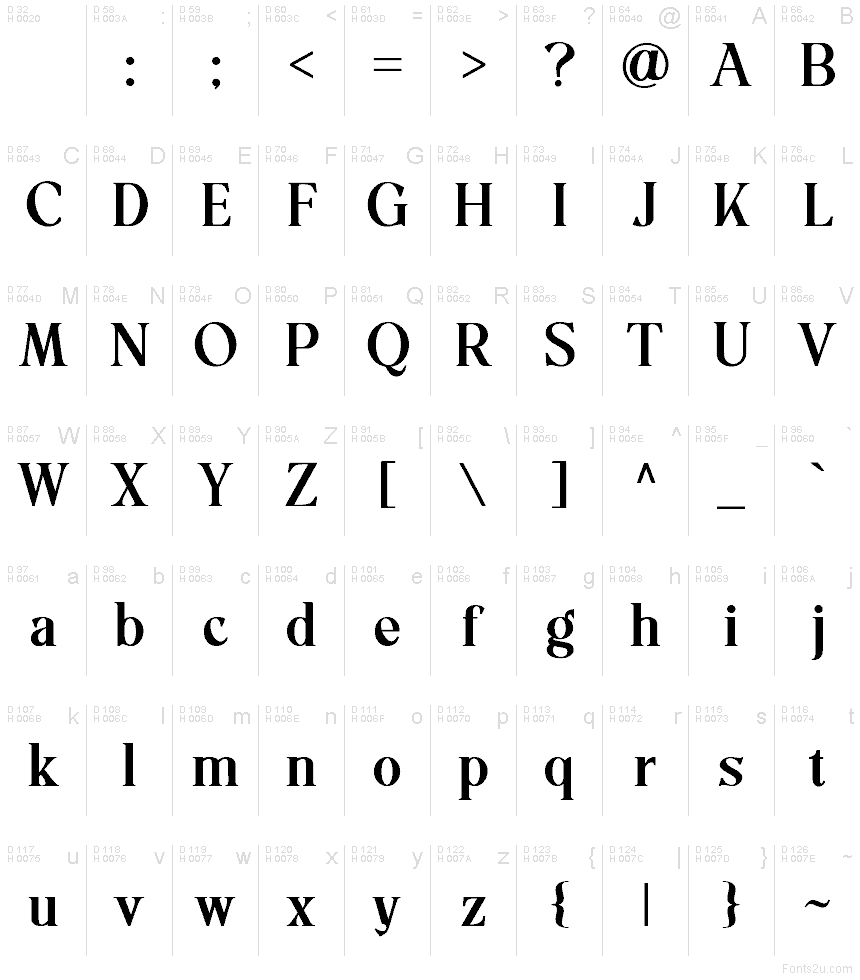
Orliet Pro Bold
Orliet Pro Bold font by Joko Setiono is a free serif font that combines elegance, sophistication, and a traditional look. The authoritative appearance of the letters makes the font suitable for professional projects as well as for personal use. Thin and thick strokes which follow each other make Orliet Pro stand out in logos, books covers, titles, or posters.
Additionally and thanks to its readability factor among others, this elegant font can be used in publications connected to education like textbooks or magazines. If you’re unaware yet of how you will use Orliet Pro Bold inside your business don’t hesitate to at least give it a try!